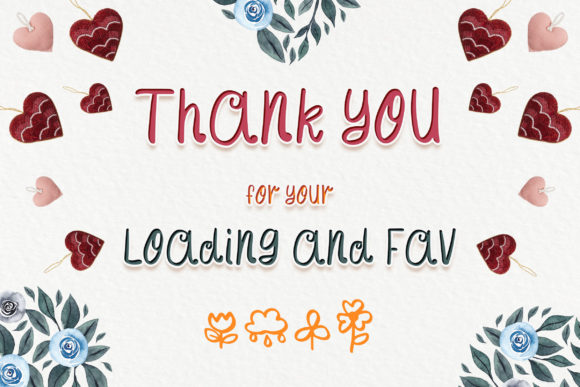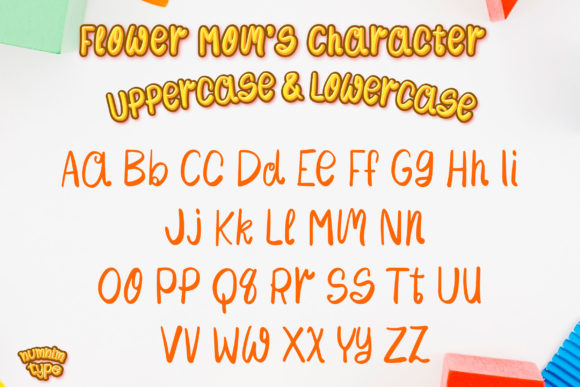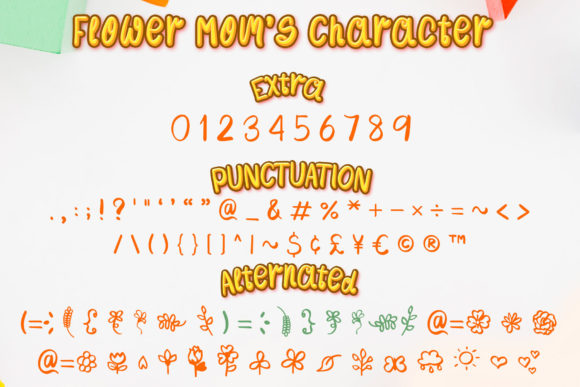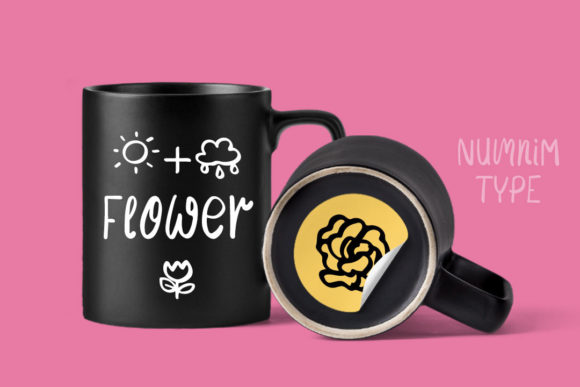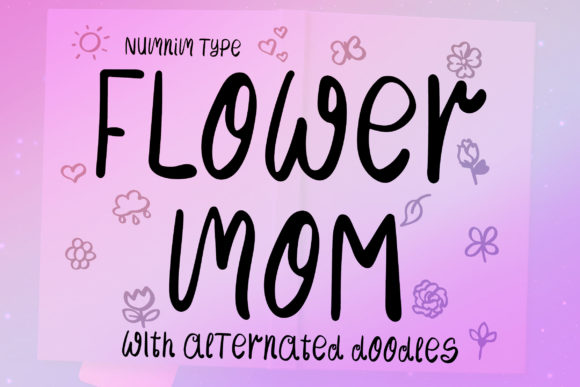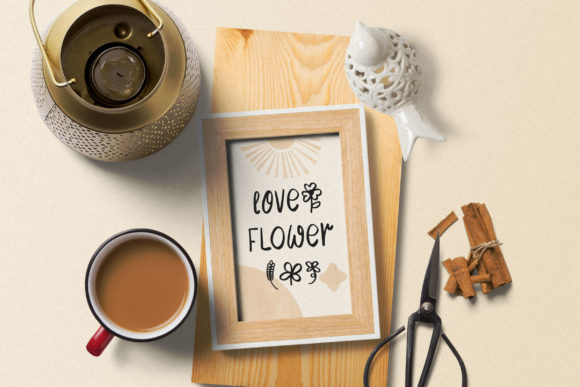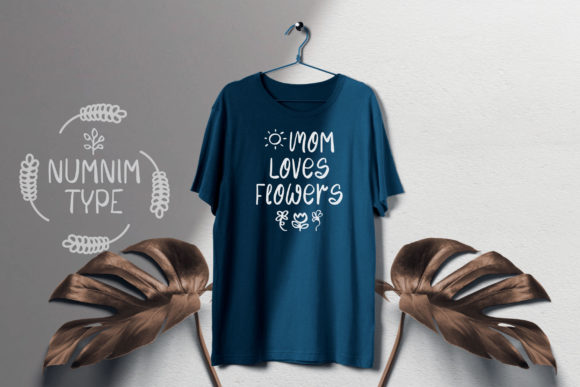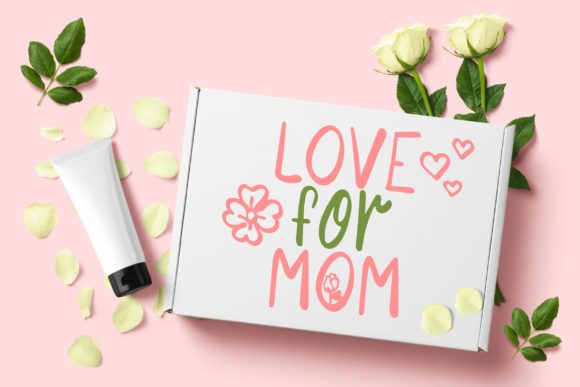
Flower Mom Font
About Flower Mom Font
Flower Mom is a joyful and friendly handwritten font, featuring cute doodle elements. Fall in love with its sweet, versatile style and use it to create lovely designs for school or child related.